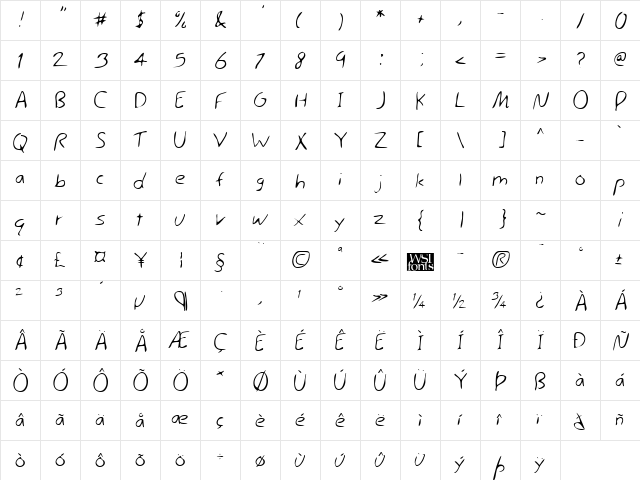
CamdensHand Regular
Design Context for CamdensHand Typeface
CamdensHand flows with the natural rhythm of handwritten lettering, making it ideal for designs that call for warmth and personal expression.
Font Pairing: Combine CamdensHand with a simple geometric sans for maximum contrast — the tension between flowing curves and clean structure is a classic typographic pairing.
Pro Tip: Use CamdensHand for short runs of text — names, titles, or taglines. Extended body copy in script faces tires the eye quickly.